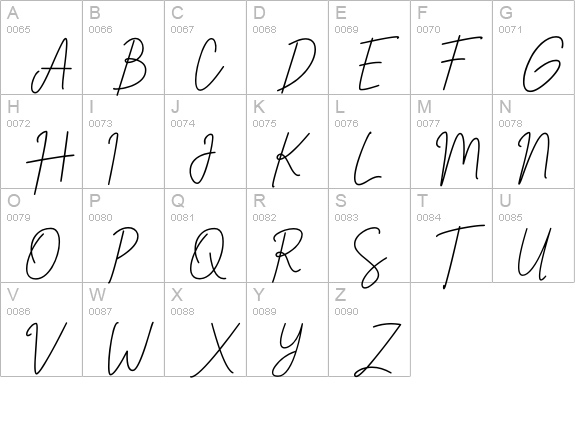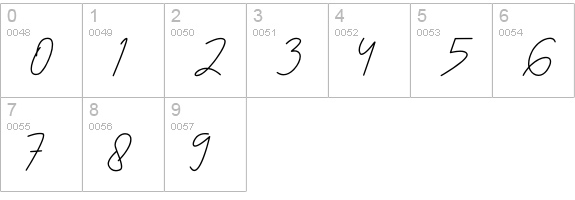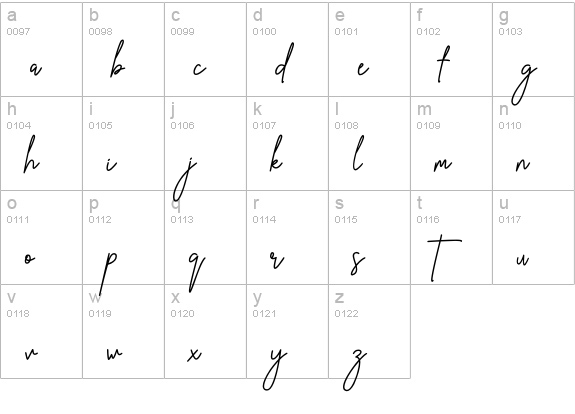
The Suavity font exudes elegance and sophistication with its sleek lines and impeccable design. This font strikes the perfect balance between modernity and classic charm, making it a versatile choice for a wide range of design projects. The Suavity font offers a touch of refinement to any text, whether it's used for invitations, branding, or editorial layouts.